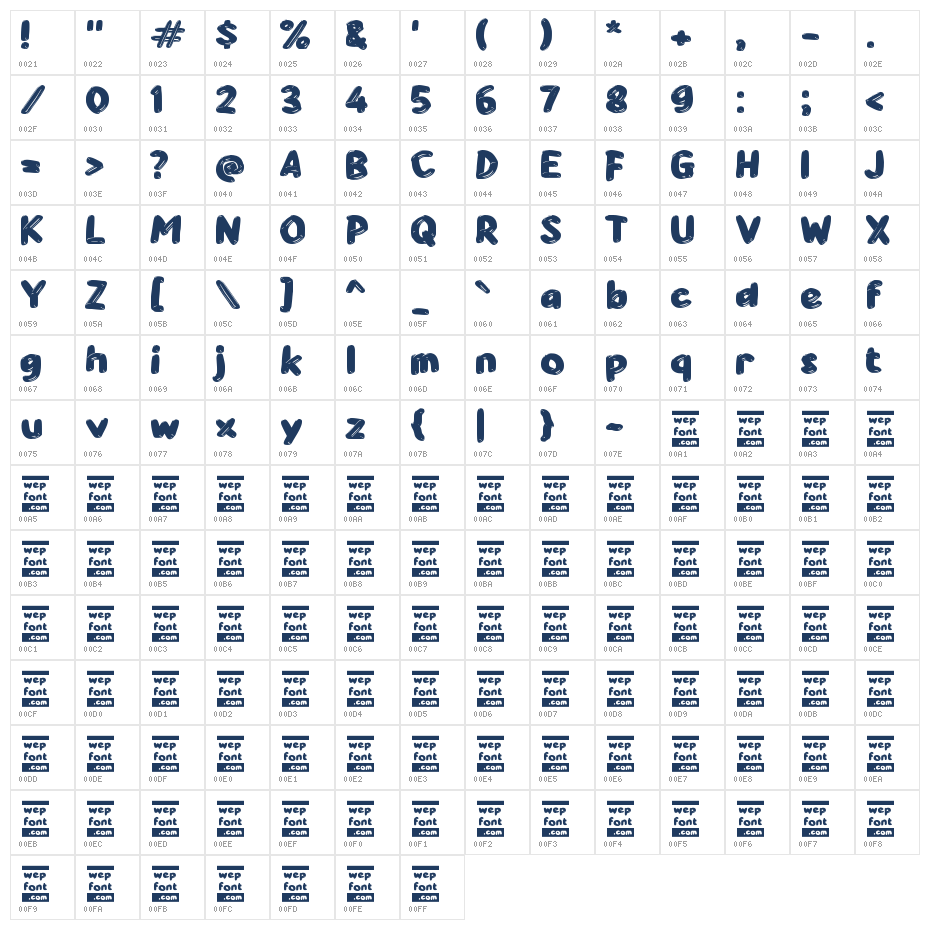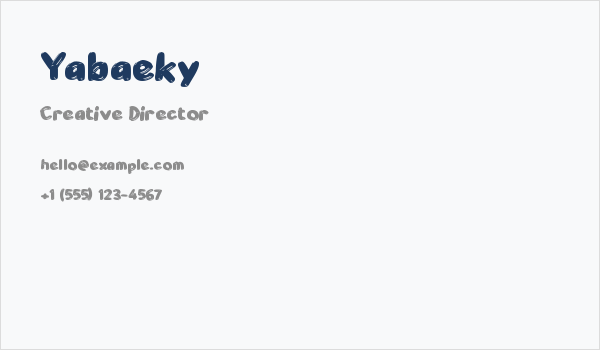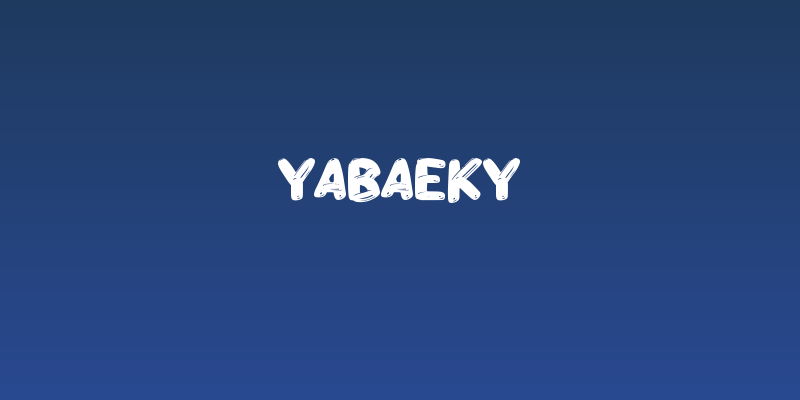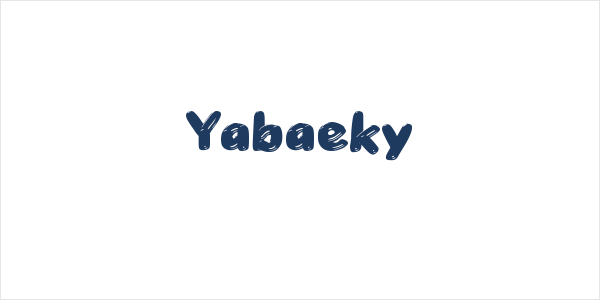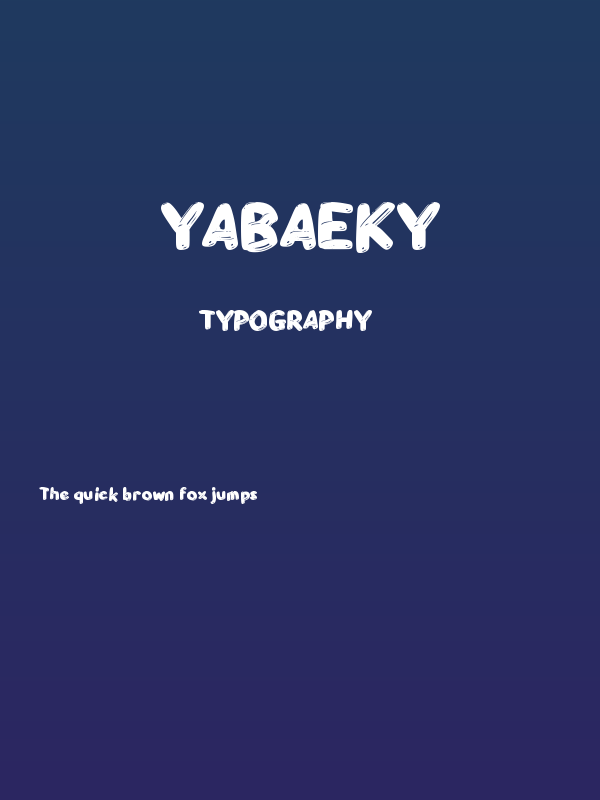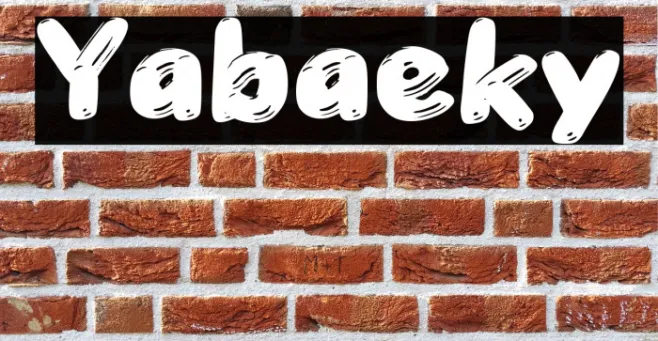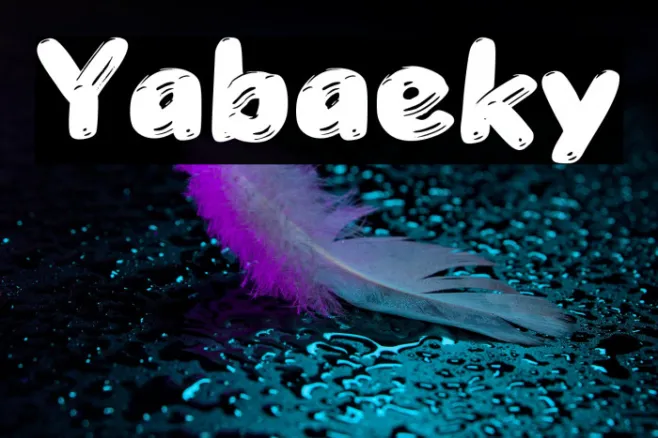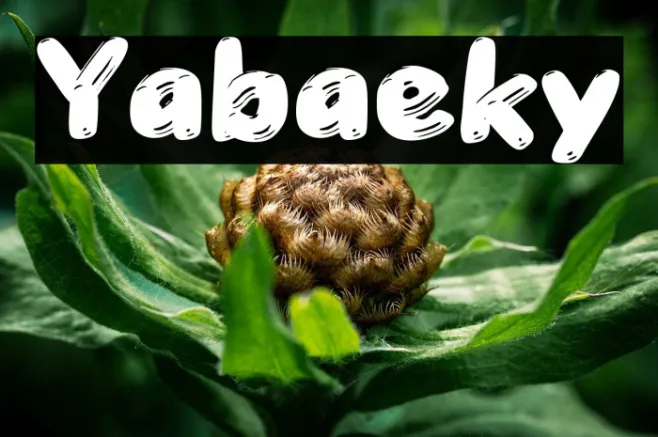
Yabaeky Font
Yabaeky Description
A bold, playful, brush-stroke style font with a casual and energetic appearance.
| Overall Style | Playful, Casual, Hand-drawn |
| Use Case | Headlines, Logos, Posters, Social media graphics |